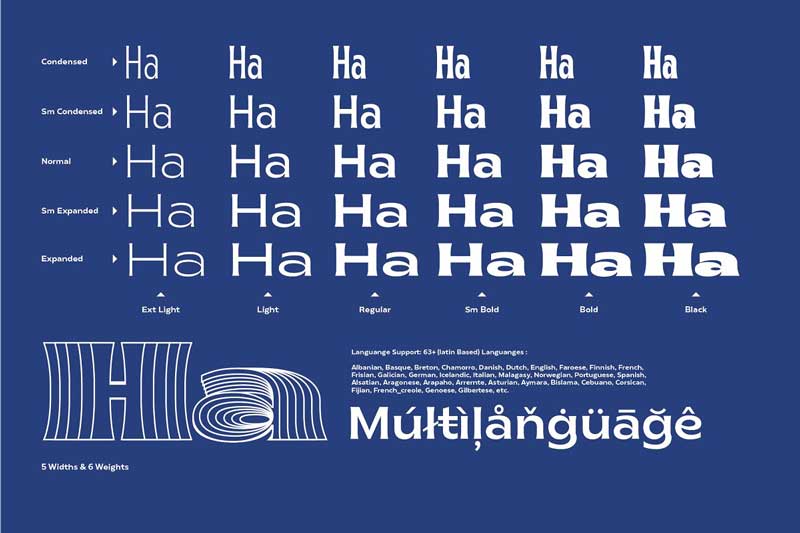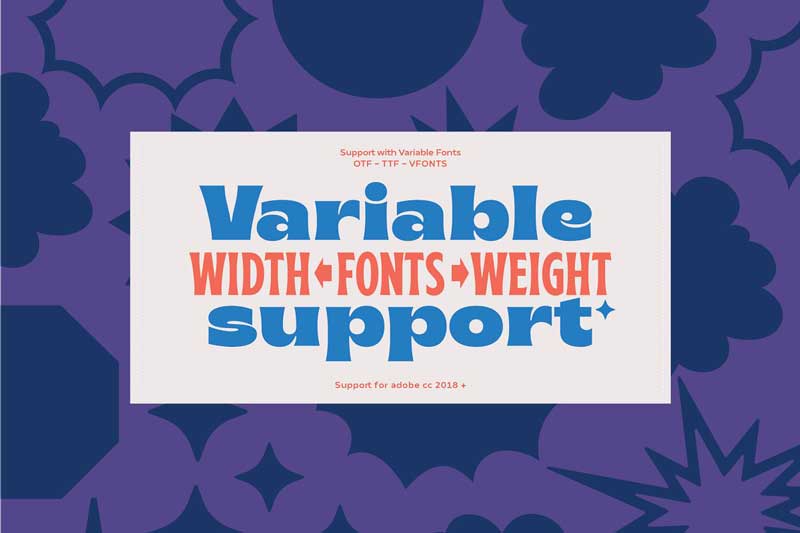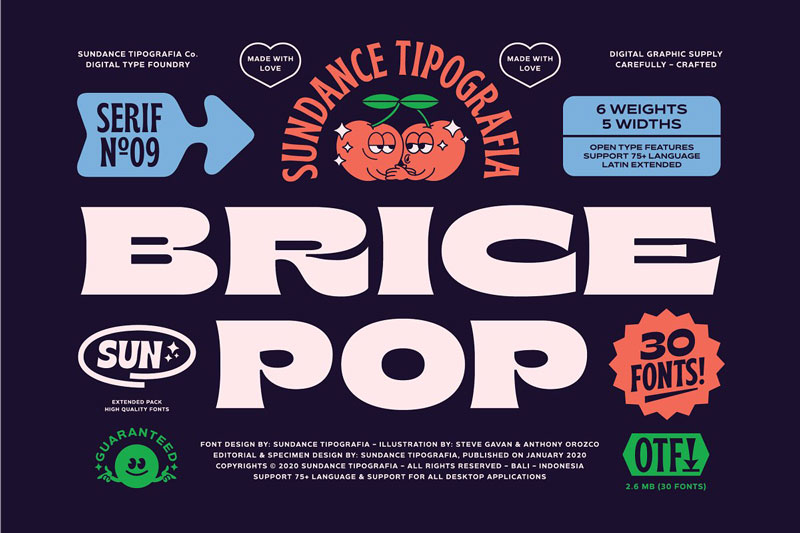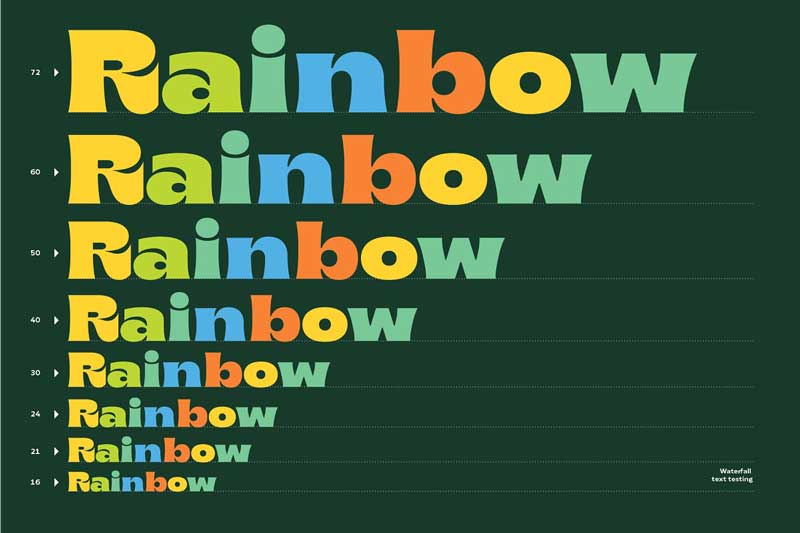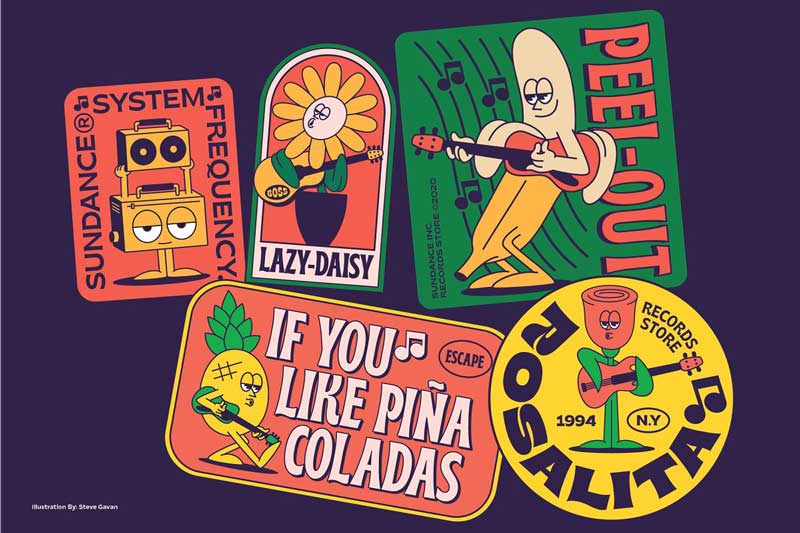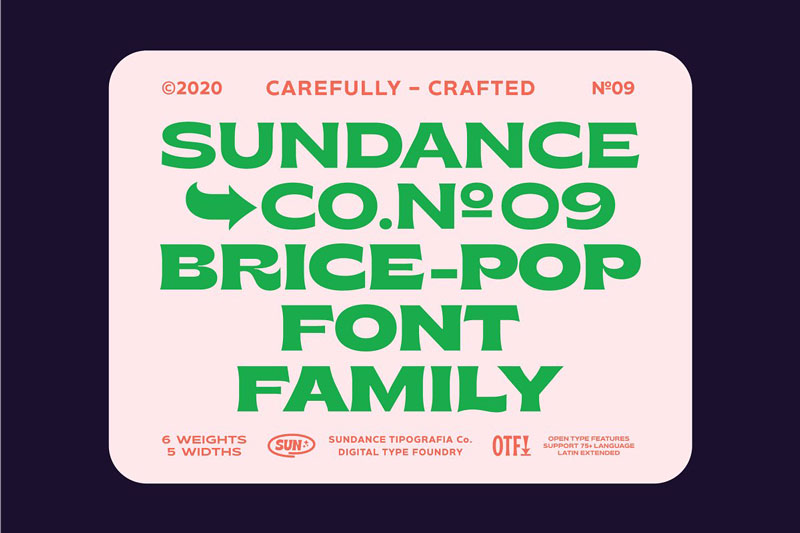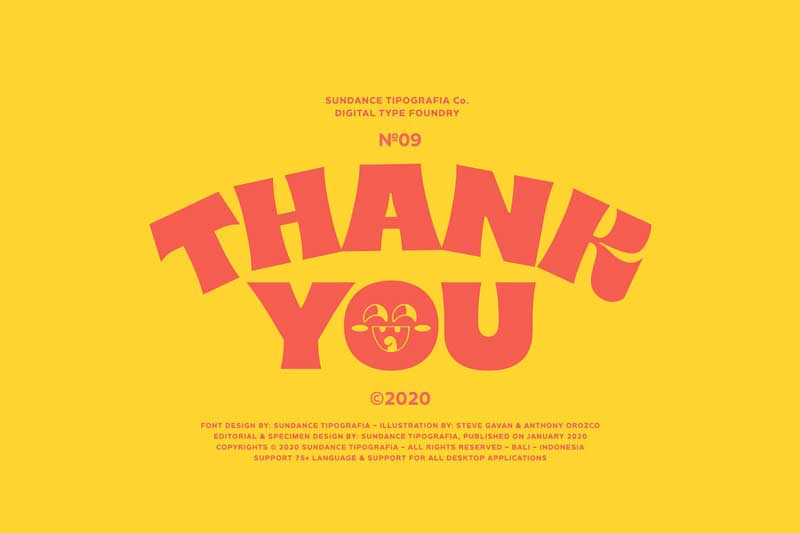
Brice Font Family
Brice Font is suitable for Header, Logotype & Captions. Brice refers to the social results of the 80s, for example, music, dance, art, literature, Which consumes the majority of the society. The characteristics of Brice font has dynamic contrast in a small bouncy like R, B, S, K, P, etc.
• Available in 5 Widths (Condensed – SemiCondensed – Normal – SemiExpanded – Expanded)
• Matches 6 weights (ExtraLight – Normal – SemiBold – Bold – Black)